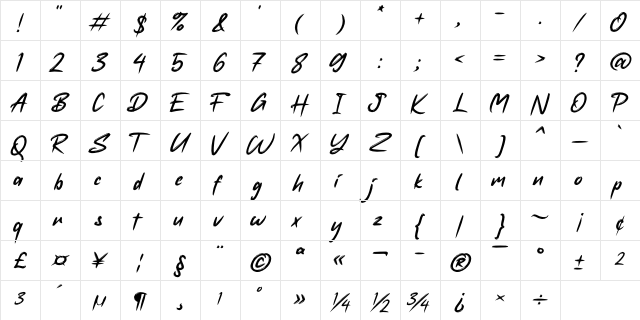
Hessthicc Regular
Design Context for Hessthicc Typeface
Hessthicc is a composed and adaptable typeface that performs quietly and consistently across a wide range of design contexts.
Pro Tip: Pair Hessthicc with a font of contrasting weight or personality to build a more expressive typographic hierarchy.